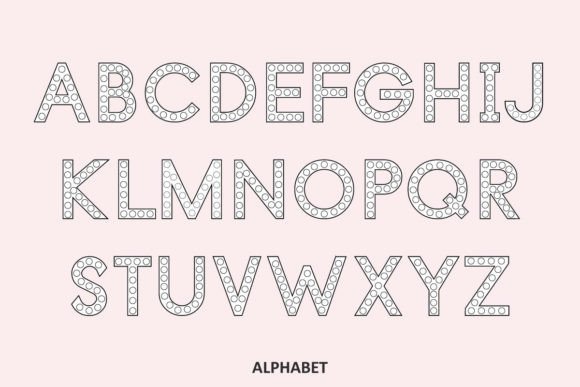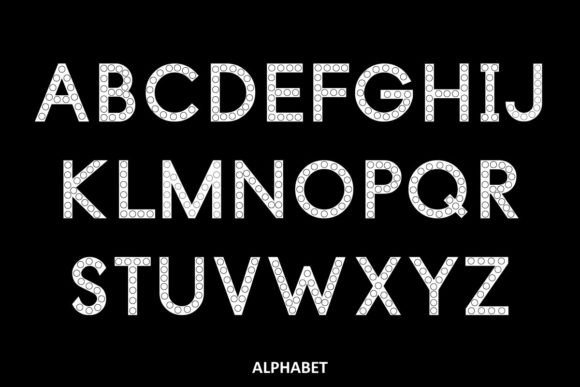
Dot Marker Font
Introducing “Dot Marker” – A great font for you to create alphabet worksheets for your toddler or preschool kid to learn their ABCs and letter formation. With this dot marker font, you can easily create do-a-dot worksheets and preschool activities for your little ones to practice. Kids can use dot markers, stick dot stickers, or simply color the dots to learn the alphabet and numbers.